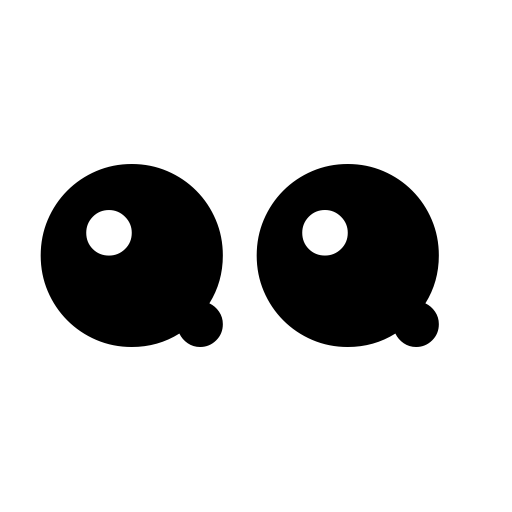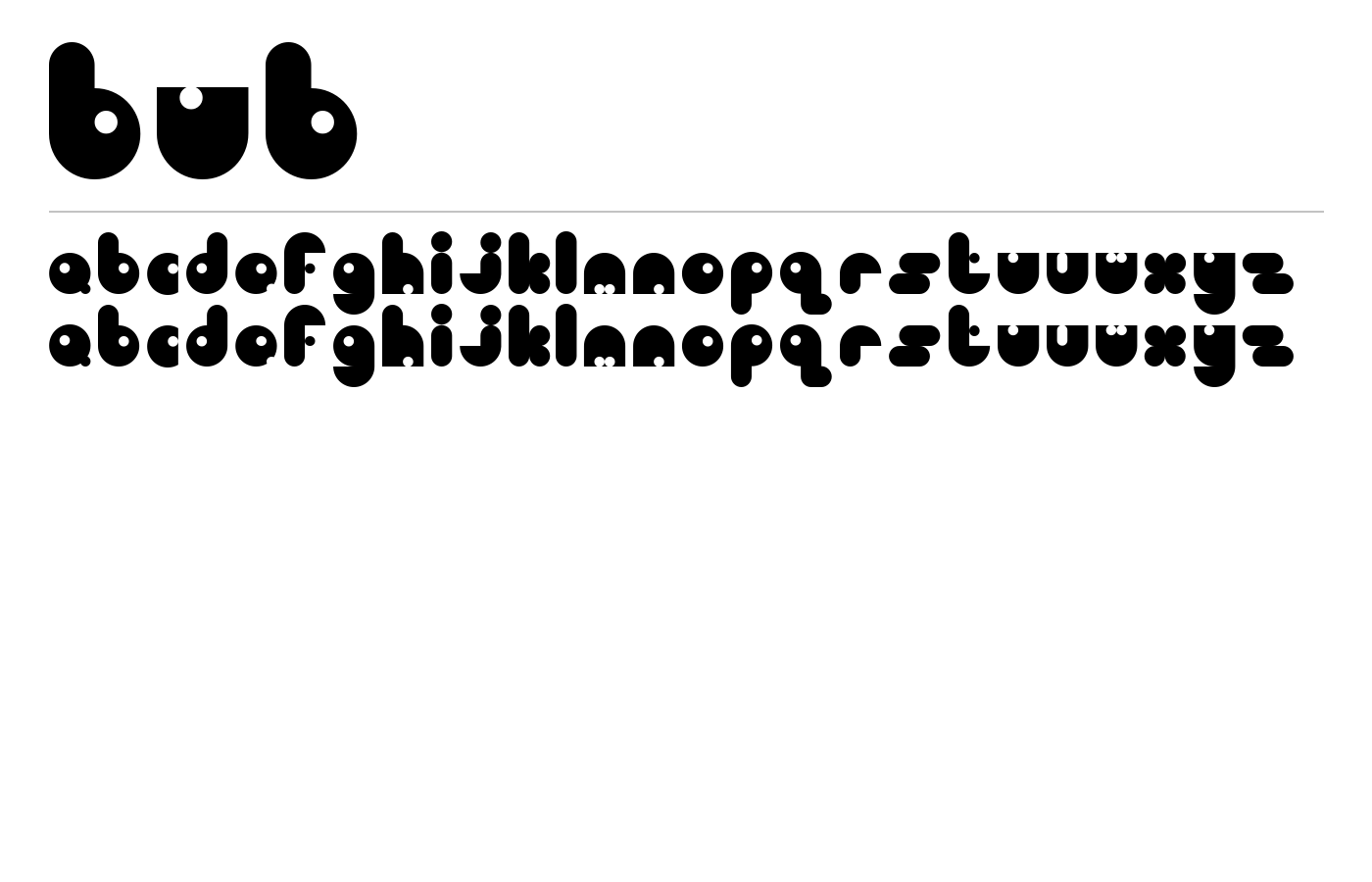
Bub Font is a bold, rounded sans serif typeface with a playful and bubbly character, featuring thick, uniform strokes and whimsical dot elements inside many letters that add charm and personality. Its heavy weight and compact structure make it perfect for eye-catching headlines, logos, and branding that seek a fun, friendly, and modern vibe. This font works well in creative projects, children's products, or any design aiming to communicate approachability and joy.
bub Font
About bub Font